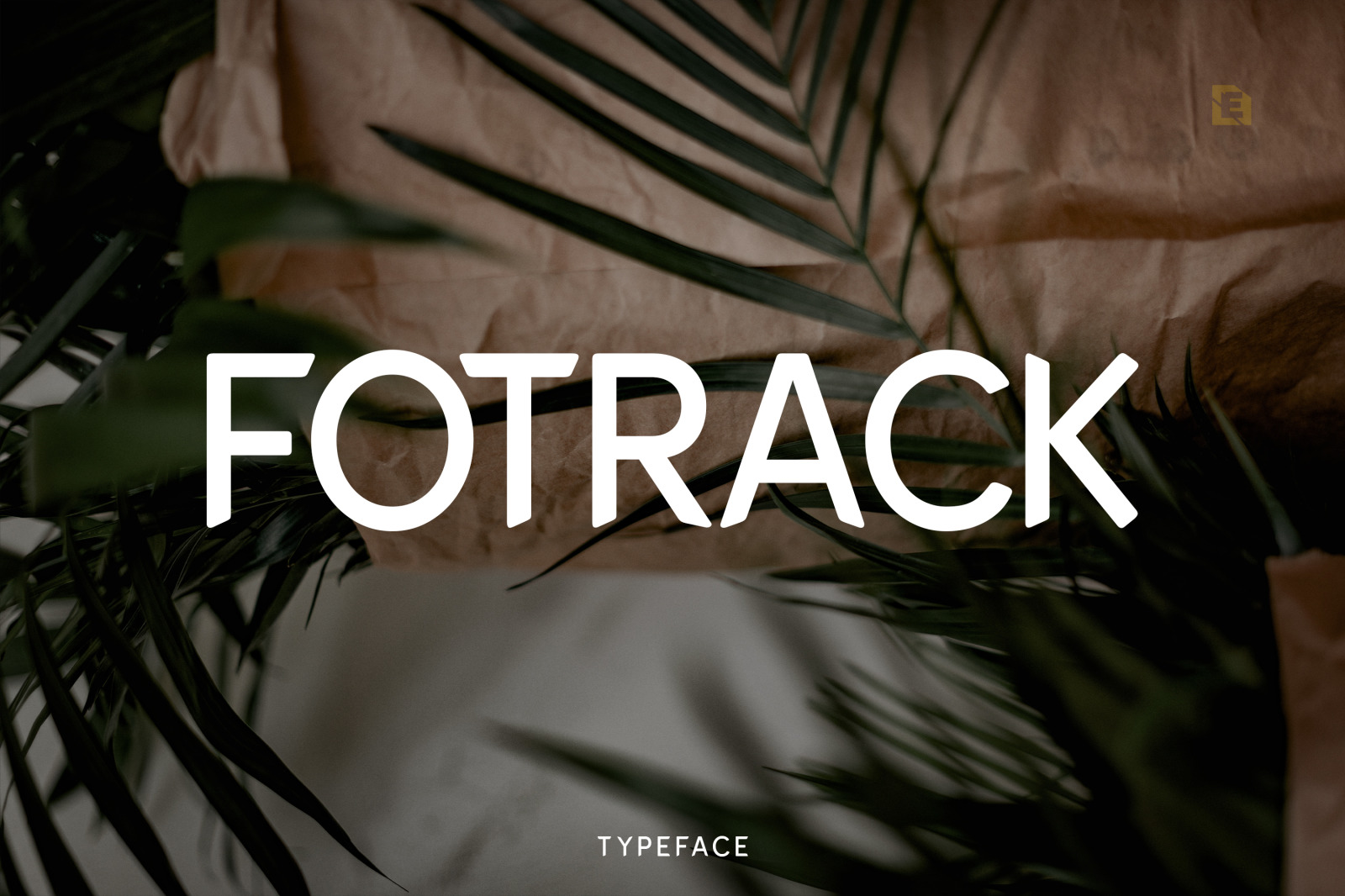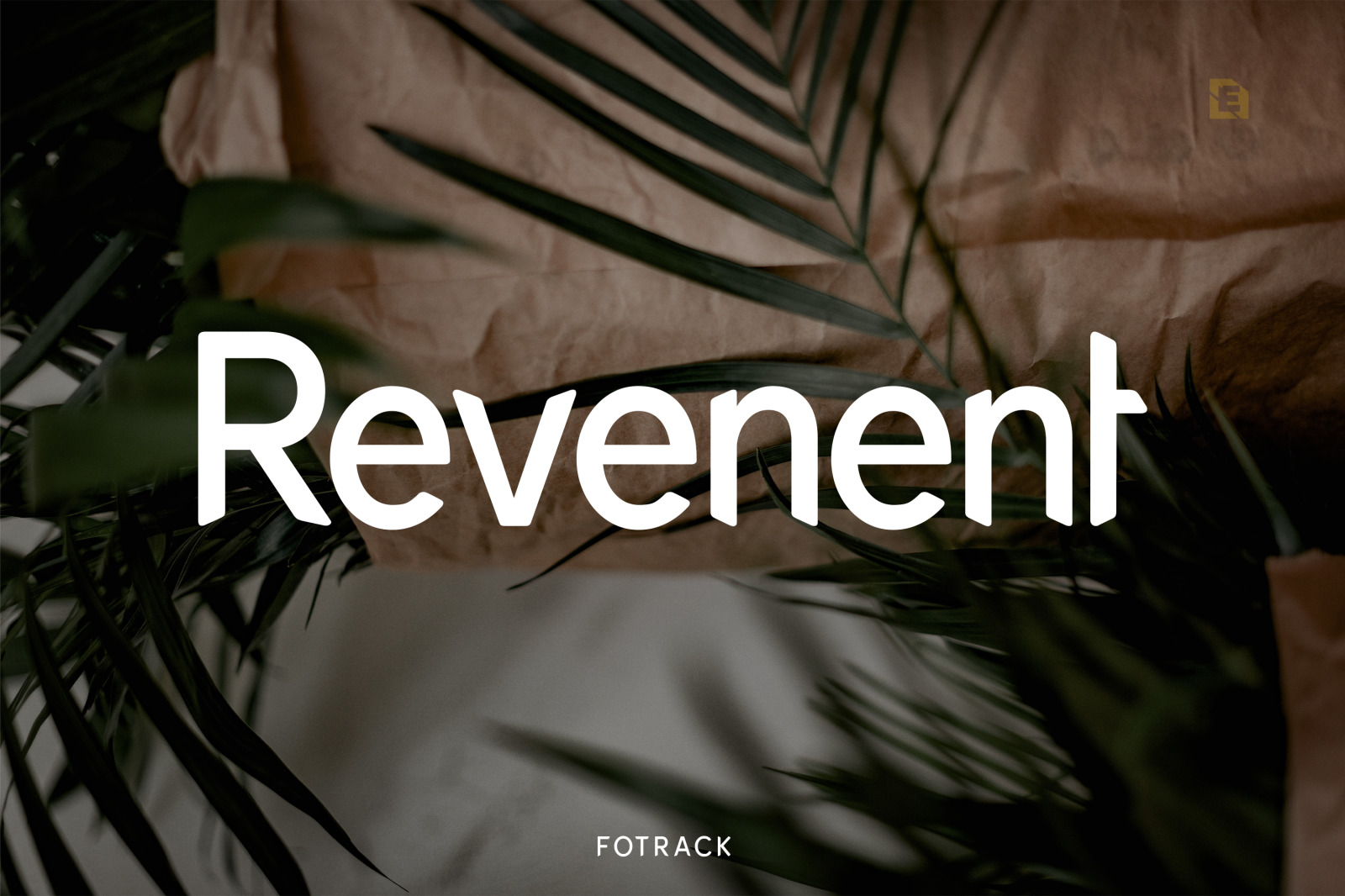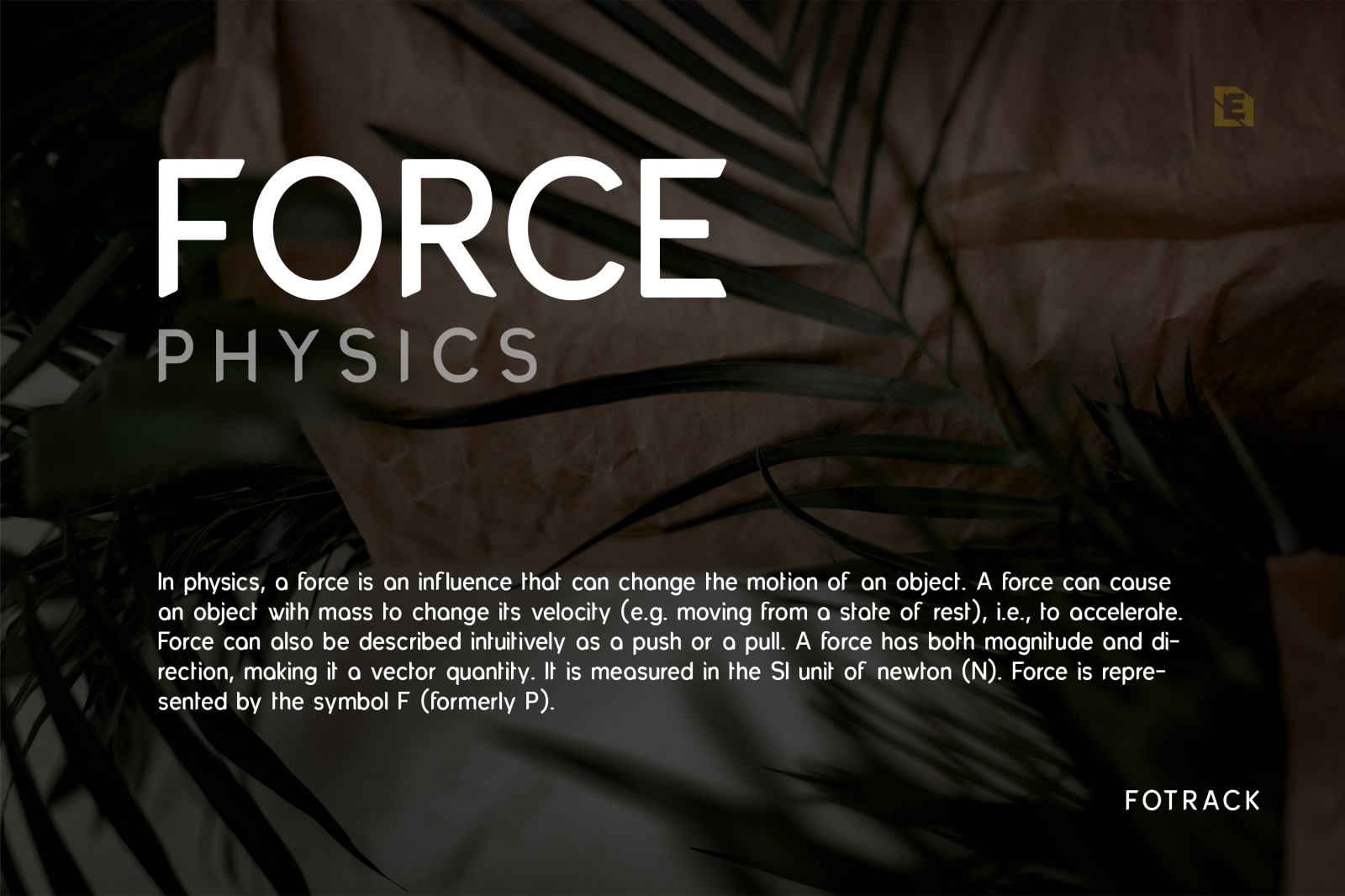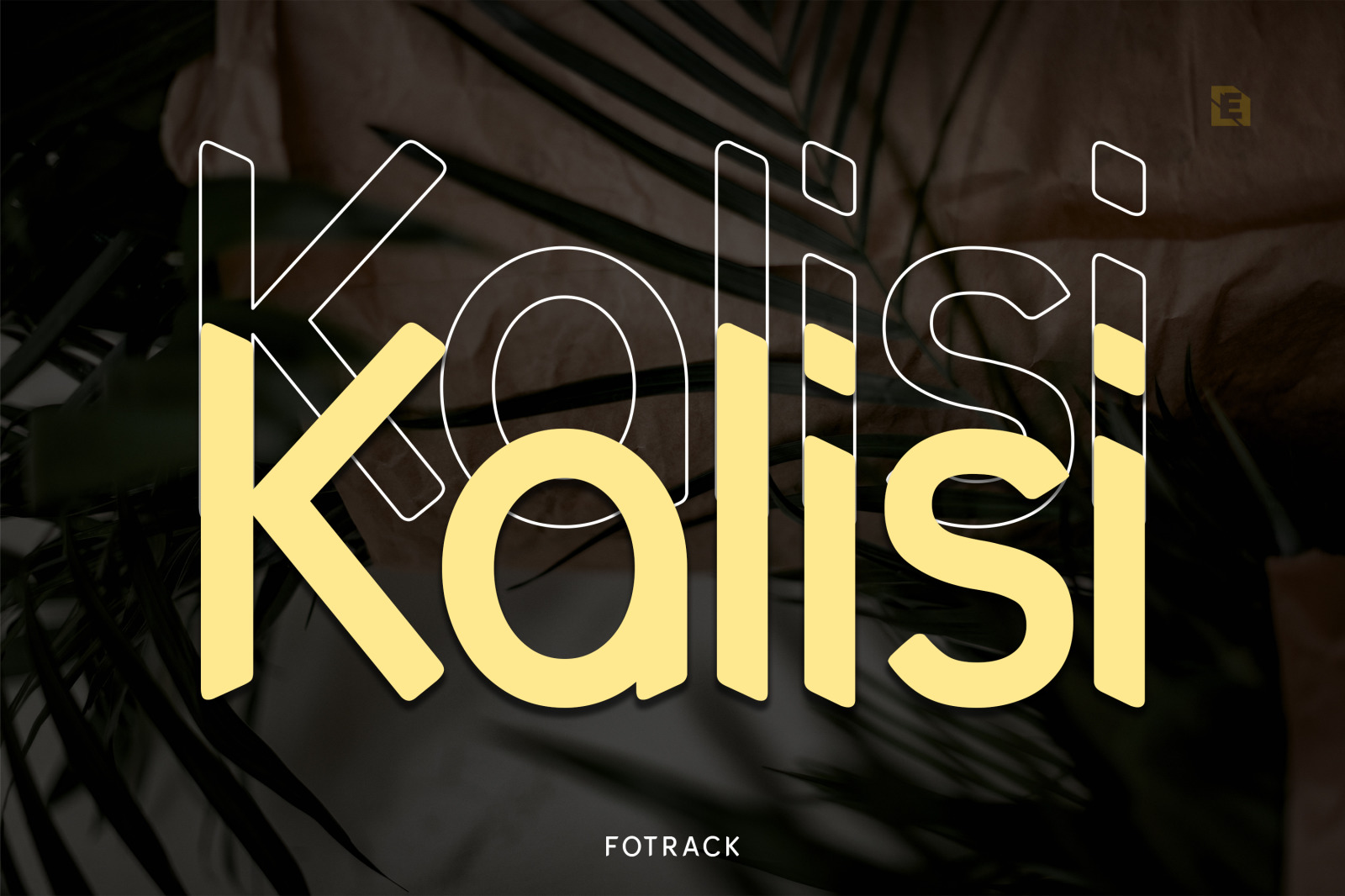
Fotrack Typeface Font
FOTRACK is a unique and modern sans serif font. Simple and easy to use, this font will be very beautiful if you mix it with your various craft designs.
This font will be great for branding, logo, stationery, business card, invitation, flyer, brochure etc.